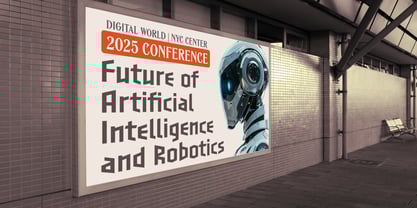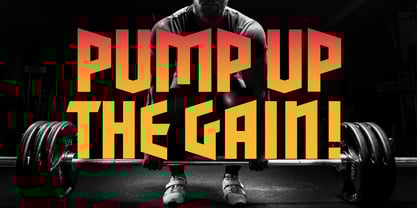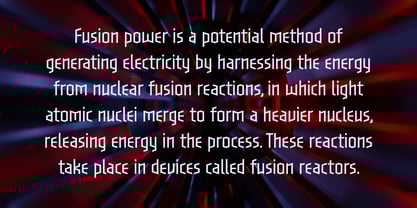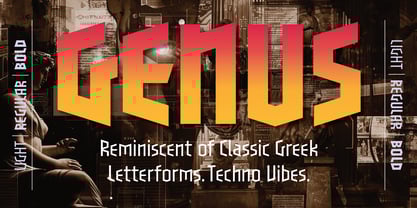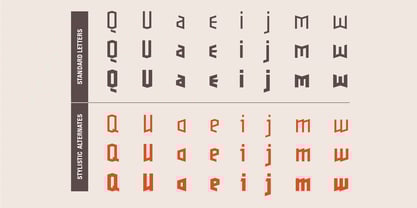
Genus BF
by Bomparte's Fonts
The Genus BF Font Family was designed by John Bomparte and published by Bomparte's Fonts. Genus BF contains 3 styles and family package options. More about this family
Genus BF is a fusion of strong diagonals among clean, geometric lines. The result is a visually-striking dynamic that grabs attention.
Whenever, wherever your design project requires a futuristic, scientific or technological aesthetic, Genus BF fits right in.
Genus BF is also useful for creations related to logos, signage, packaging, branding, gaming graphics, and etc.
Stylistic Alternates are available for "a", "e", "i", "j", "k", "m", "w", "Q" and "U".
And for Stylistics Sets:
• Stylistic Set 01: alternate "a" and "e"
• Stylistic Set 02: alternate "i", "j", "k", "m" and "w"
• Stylistic Set 03: additional alternates for "i", "j"
• Stylistic Set 04: alternate "Q", and "U"
• Stylistic Set 05: alternate "0" (zero)